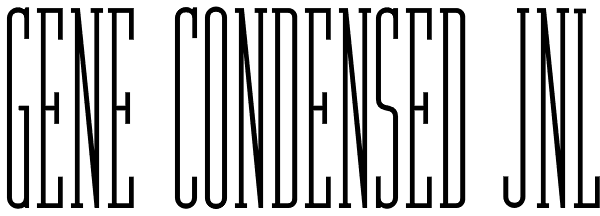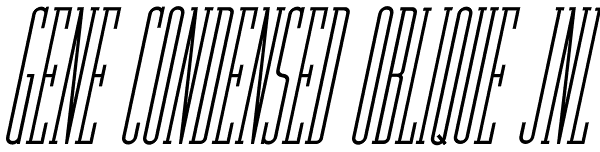
Gene Condensed JNL
Gene Gable is known to many graphic artists from his on-line column 'Scanning Around with Gene', which was on the Creative Pro website for a number of years, covering a variety of topics ranging from printing techniques to paper ephemera; water...
Gene Condensed JNL
Gene Condensed Oblique JNL